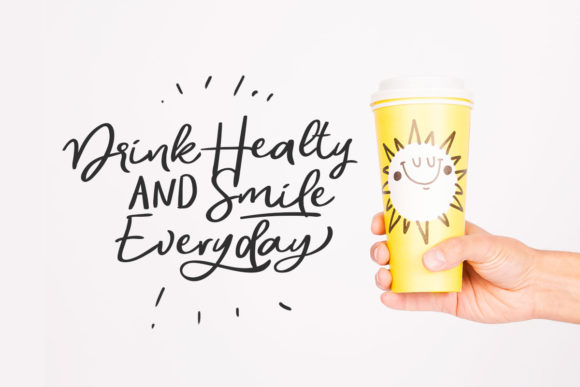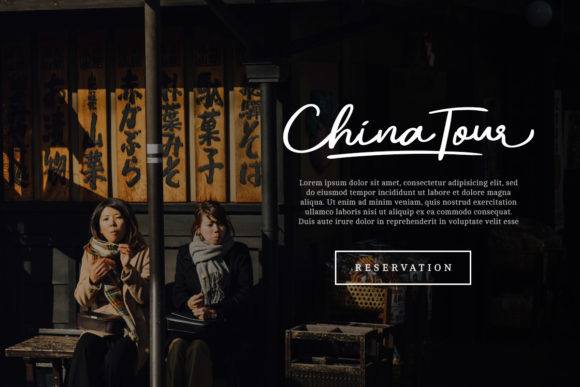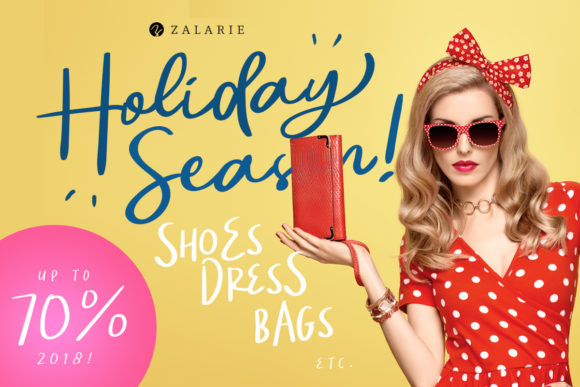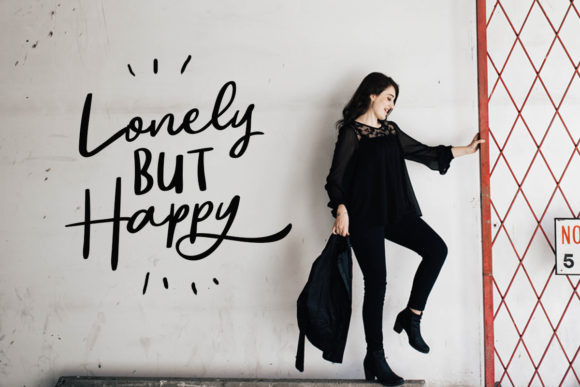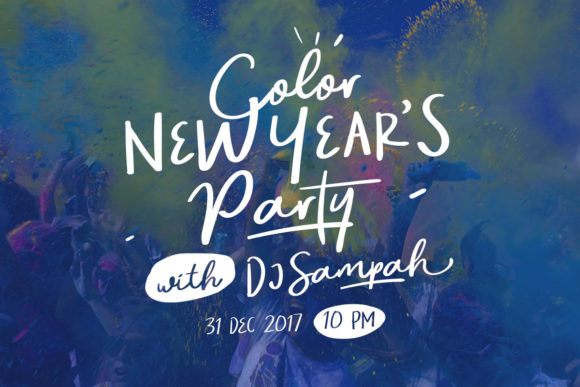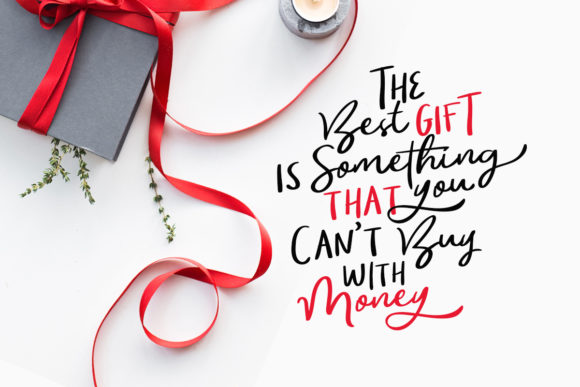
Introduction to Historia Sky Duo Font
Remember the moment when you stumbled upon the perfect design element that elevated your creative project from ordinary to extraordinary? For designers, that ‘aha’ moment is a treasure to behold. And for those seeking to infuse their work with a touch of elegance, the Historia Sky Duo Font is a valuable find. This stunning font duo offers a harmonious balance of script and sans versions, making it an ideal choice for designers looking to add a striking yet cute feel to their designs.
What sets the Historia Sky Duo Font apart is its exceptional readability and high-quality design. Whether you’re working on a personal project or a commercial design, this font is sure to make a lasting impression. With its transparent background and crisp lines, it’s an excellent addition to any design resource. The best part? It’s available for free download, making it a go-to choice for designers on a budget.
As a valuable design resource, the Historia Sky Duo Font is a must-have for any creative project. Its versatility and aesthetic appeal make it an excellent choice for designers seeking to create visually stunning designs that leave a lasting impact.
Key Features of Historia Sky Duo Font
- High-quality design resource suitable for various creative projects
- Comes in two unique font styles, perfect for adding visual interest to your design
- Designed with high resolution in mind, ideal for printing and digital use
Honest Review: Historia Sky Duo Font
I recently stumbled upon the Historia Sky Duo Font and I must say it’s been a game-changer for my design projects. As a designer, I’m always on the lookout for high-quality design resources that can help me elevate my creative work.
The Historia Sky Duo Font is a beautiful, elegant script font that’s perfect for any project that requires a touch of sophistication. What works well with this font is its transparent background, making it easy to use on any design without worrying about clashing colors.
- ✨ Elegant script font that’s easy to read
- ✨ Transparent background for seamless integration
While the Historia Sky Duo Font is an excellent choice, there are a few limitations to consider. The font may not be as versatile as some other script fonts on the market, and it’s best suited for projects with a more formal tone.
Overall, I’m thoroughly impressed with the Historia Sky Duo Font and I highly recommend it to any designer looking for a high-quality design resource for their next creative project.
To maximize the effectiveness of the Historia Sky Duo Font, use it in conjunction with other design elements to create visually appealing graphics. Experiment with different font sizes, colors, and alignments to achieve the desired look.
The Historia Sky Duo Font is ideal for various creative projects, including graphic design, digital art, and branding. Its transparent background feature makes it suitable for designing overlays, icons, and graphics with a high level of transparency.